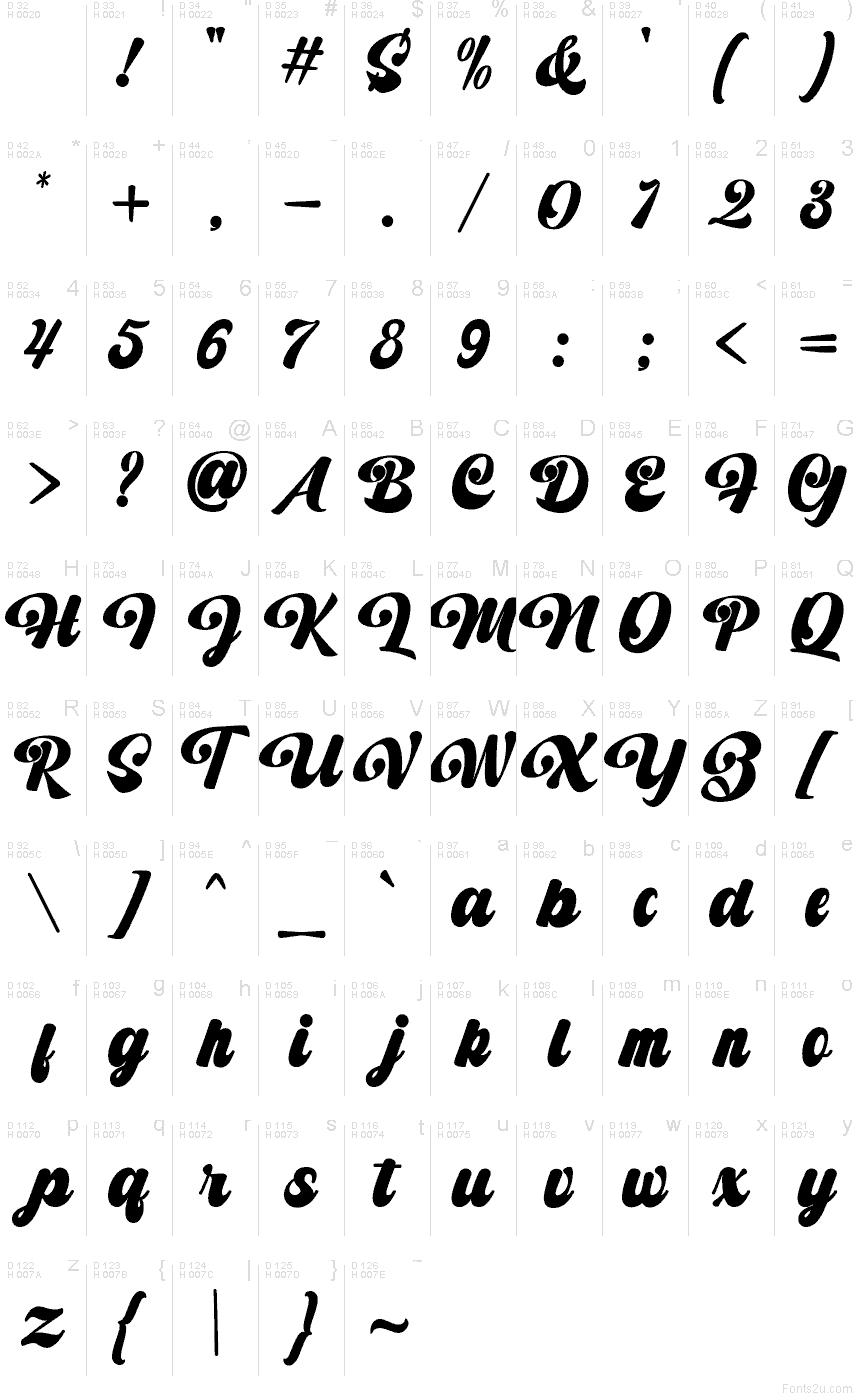
BiglandRetro
Bigland Retro font by LetterFreshStudio is a free retro brush script typeface with thick, inky strokes and smooth, rolling curves that feel straight out of a hand-painted storefront sign. The letters swing into each other with confident, looping connections, giving your words a bold, glossy rhythm that reads fast while still feeling lush and expressive. There’s a soft, almost velvety weight to the shapes that brings instant warmth and nostalgia.
Using Bigland Retro, you can inject vintage character into logos, packaging, posters, café menus, social media graphics, T-shirt designs, and signage that needs to be seen from across the street. This free font shines at larger sizes where its juicy curves and dense texture can breathe. For a clean, balanced look, pair Bigland Retro with a simple, narrow sans serif for supporting text and let this script handle the hero moments.